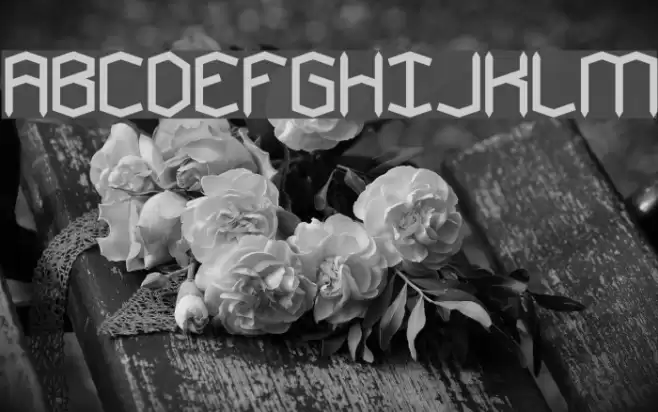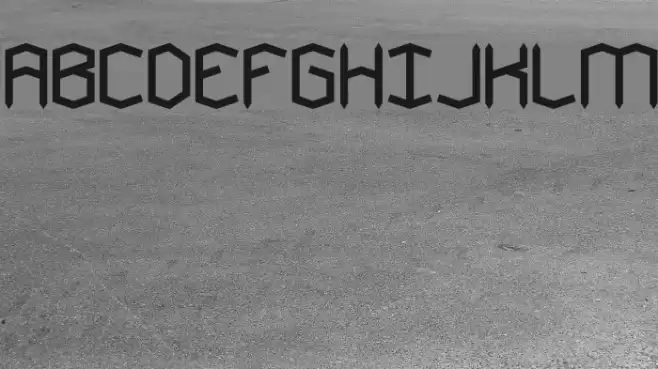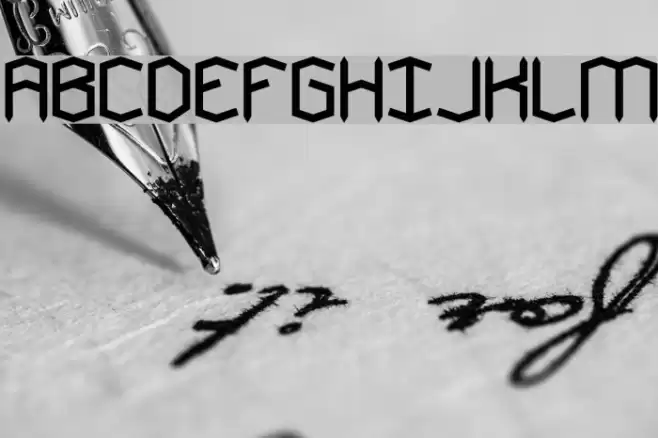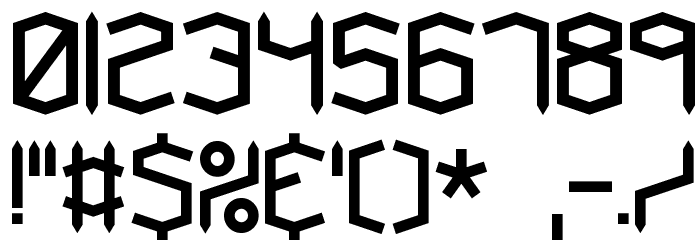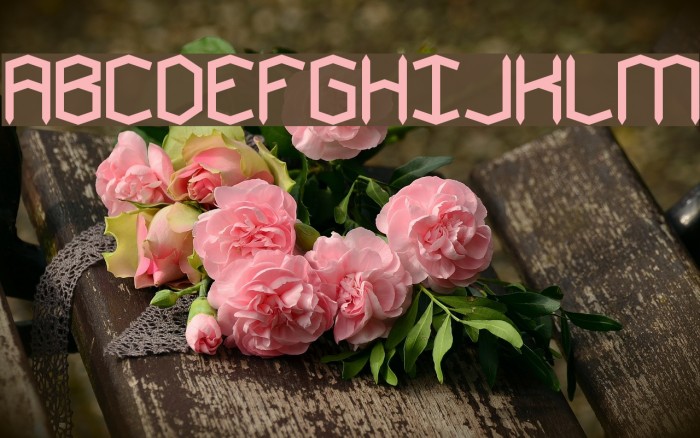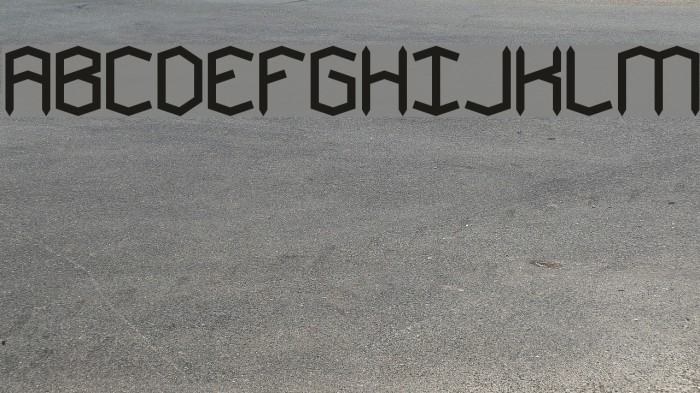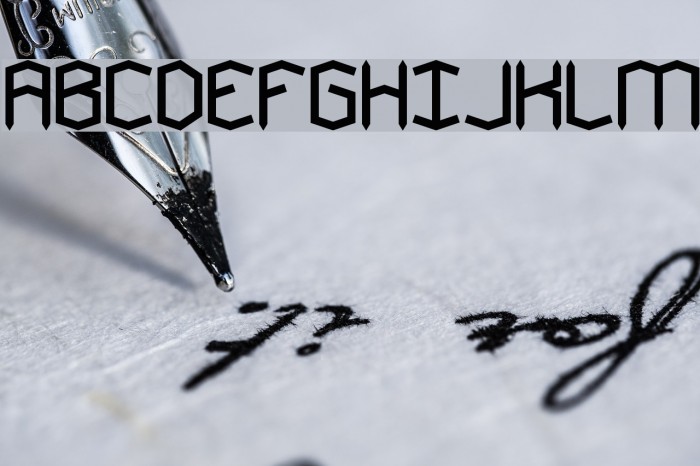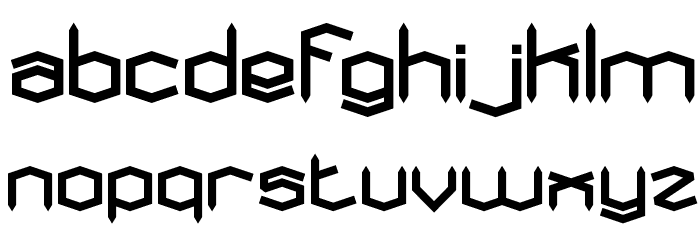
Mysterons BRK Font
Mysterons BRK Description
This font features a bold, geometric design with a futuristic and angular aesthetic. The characters are constructed with sharp edges and a consistent stroke width, giving it a strong and impactful appearance. The uppercase and lowercase letters maintain a uniform style, with the uppercase being slightly taller and more prominent. The numerals and special characters follow the same geometric theme, ensuring a cohesive look across all glyphs. This font's unique style makes it stand out, suitable for projects that require a modern and edgy feel.
A bold, geometric font with a futuristic and angular design from Futuristic fonts.
- Proposed Projects: Ideal for sci-fi themed projects, video game titles, tech branding, and modern posters.